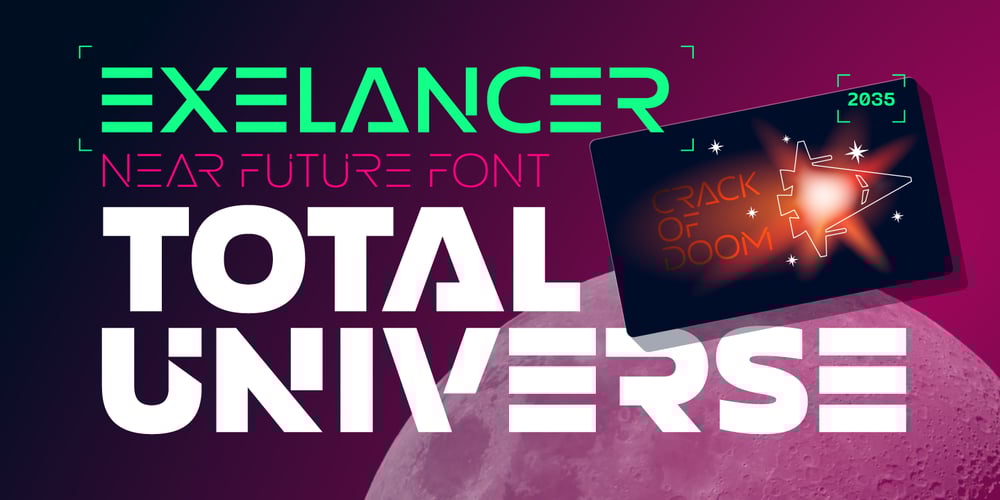
Exelancer
Exelancer font
Exelancer Font Family was designed by Alexey Popov and published by Popskraft. Exelancer contains 10 styles and family package options. We are proud to present the futuristic Excelancer font. This font was inspired by passion for space stories. The uniqueness of this font lies in the rare combination of a wibrant style of decorative capital letters and perfectly balanced lowercase charachters that read well in any massive text. Thus, you get a universal font kit with which all the tasks of futuristic design are solved. However, this font will become a decoration not only for fantastic stories, but also for everything related to technology, development, progress and even sports. In short, this is the pure energy of the future!